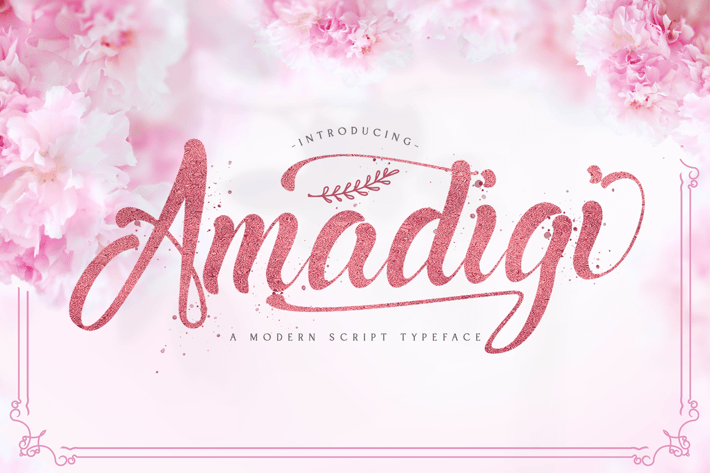
Amadigi - Modern Script Font
Introducing Amadigi - Modern Script Font
Amadigi is a flowing handwritten font, described by an elegant touch, perfect for your favorite projects. Fall in love with its incredibly distinct and timeless style and use it to create spectacular designs!
- Stylistic Alternates
Amadigi is a flowing handwritten font, described by an elegant touch, perfect for your favorite projects. Fall in love with its incredibly distinct and timeless style and use it to create spectacular designs!
- Stylistic Alternates